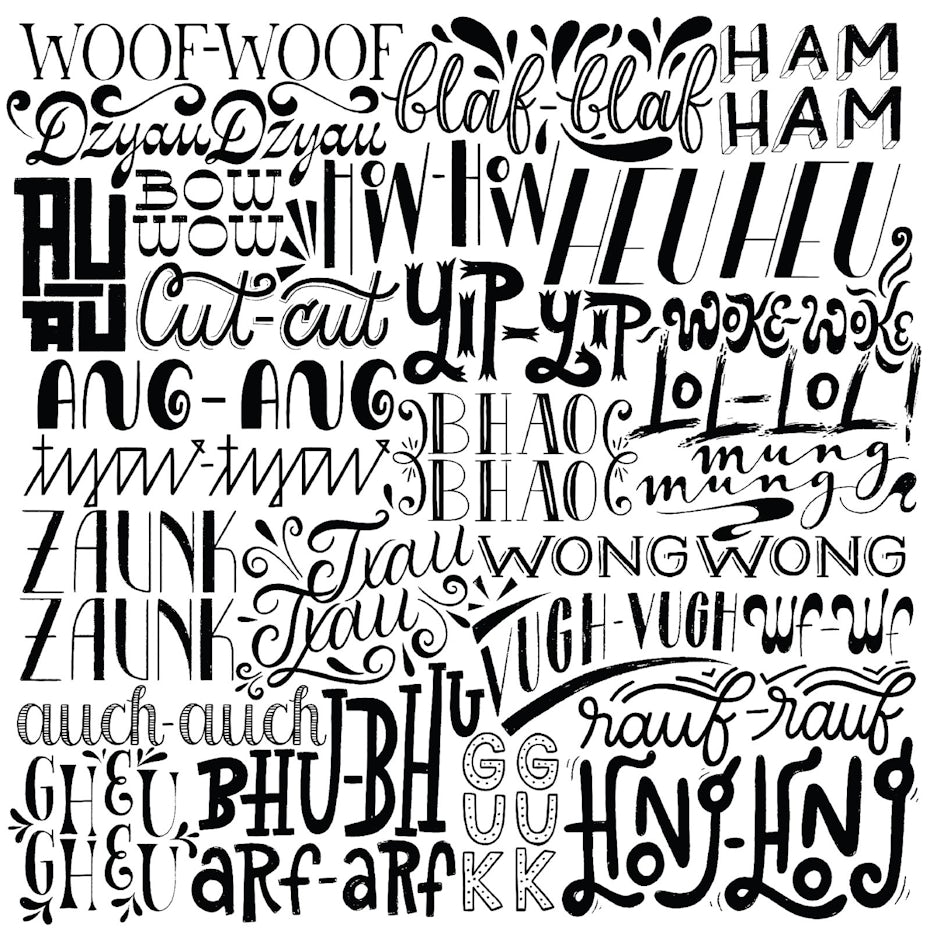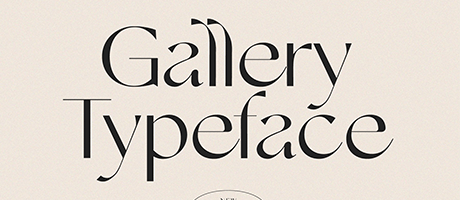
Free 2019 Fonts Style Free Typography Fonts
2019 fonts style
As a creative designer you understand exactly how important it is to use the right font for every project.
2019 fonts style. Designed by oswald bruce cooper and released by the barnhart brothers spindler type foundry in 1922 cooper is a truly classic typeface. Whenever we write something in any software whether it is adobe photoshop or adobe illustrator or simple software like wordpad notepad etc. All of these fonts can be downloaded for free from google fonts. Free fonts for every project.
30 great free fonts for 2019 is published by muzli in muzli design inspiration. Extra loud bold fonts 2. This would have to be our top font combination for 2019. Nostalgic vintage fonts 4.
Using this handy font combination tool we have compiled a list of 19 contemporary font pairings for 2019. Lets take a look at the latest font trends in 2019 so you can use them in your own designs. See the timeline overview for more years and a history of free fonts. 1001 free fonts is the home of free fonts since 1998.
So we decided to continue and make a huge free fonts article for our great subscribes readers. Expanded by bitstream into a complete series of round edged text faces this is a font whose popularity we foresee continuing strongly throughout 2019. Personal use free. Download fresh free fonts for 2019.
When using photoshop or illustrator a good font fills the entire image. 9 font trends that will be huge in 2019 1. The style of the words on the page influences the overall tone of the content draws the eye to particular points and affects readability. There we always notice one thing font different fonts make word and syntax more beautiful.
These professionally designed best free fonts can significantly improve your design by simply included them in the project you are working on. Minimal sans serif fonts 3. Via muzli design inspiration. Playfair display with source sans pro.